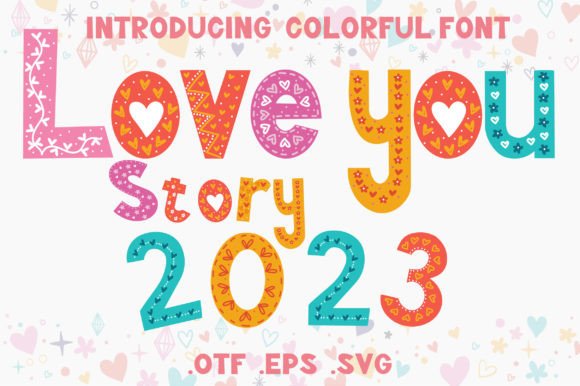
Introducing Love You Story Font, the perfect choice for all the creative souls out there! This colorful font, designed by the talented team at NN-Font Store, will take your designs to a whole new level of cuteness and playfulness.
Love You Story Font is not just another ordinary font. It is a creative masterpiece that captures the essence of love in its every curve and swirl. Its unique pattern about love is sure to tug at the heartstrings of anyone who lays eyes on it.
Whether you are a professional designer or just someone looking to add a touch of love to your projects, Love You Story Font is your ultimate companion. Its versatility knows no bounds, making it the best font for SVG designers who want to create stunning graphics that speak volumes about love and affection.
Valentine's Day, anniversaries, birthdays, or any other special occasion that celebrates love - Love You Story Font is your go-to choice. With this font, you can effortlessly bring your heartfelt emotions to life through typography. Imagine the joy on your loved one's face when they receive a heartfelt message beautifully crafted with this font.
Not only does Love You Story Font make your designs captivating, but it also creates a lasting impression on anyone who sees them. Its eye-catching appeal will instantly grab attention and make your creations stand out in a sea of ordinary designs.
Remember, Love You Story Font is not just another font; it is a masterpiece that will elevate your designs to new heights. Don't settle for ordinary fonts when you can have the best. Get ready to ignite emotions, evoke smiles, and create memories that will last a lifetime with Love You Story Font.